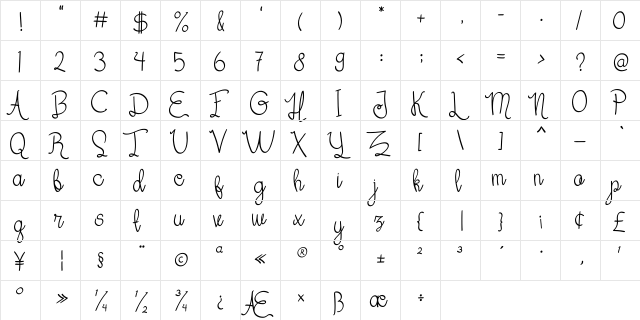
Her Garden Regular Font Preview
Her Garden Regular Regular
Her Garden Regular Font Details
Design Context for Her Garden Regular Typeface
Her Garden Regular takes a measured approach to typography — its balanced proportions and neutral character make it a reliable workhorse for both digital and print work.